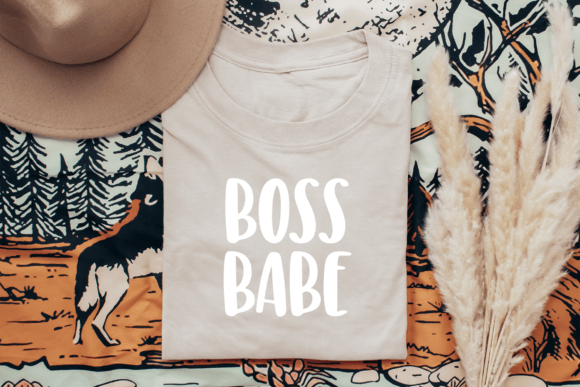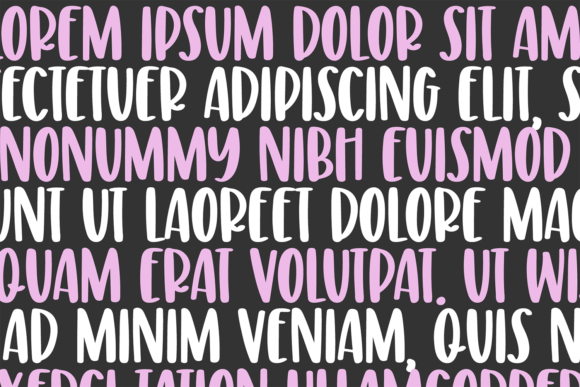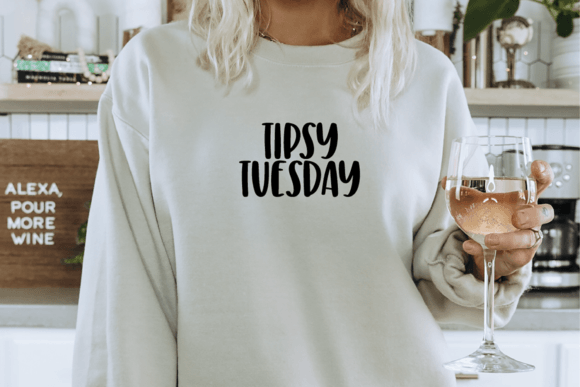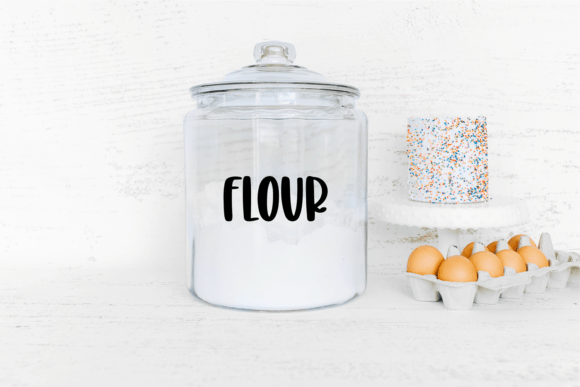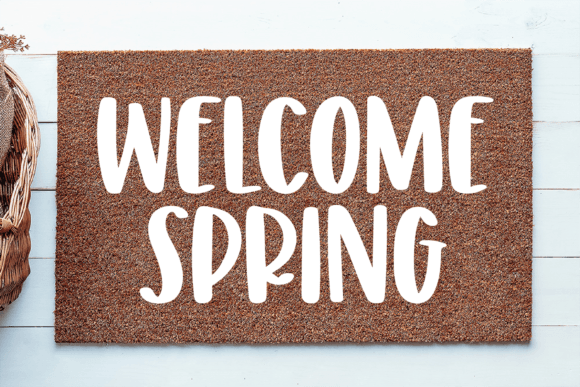
Introduction to Raspberry Lemonade Font
Raspberry Lemonade is a sweet and bold brush font, with thick, sweeping strokes that radiate energy and playfulness.
Its lively and dynamic letterforms are perfect for youthful branding, social media graphics, and eye-catching titles This font is a charming and bold choice that will bring a burst of personality to any project.